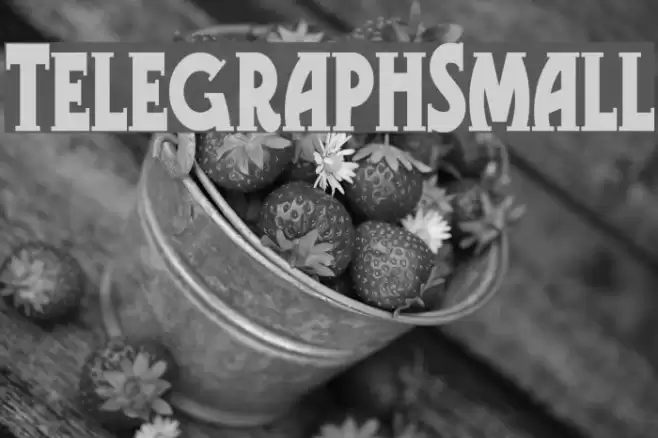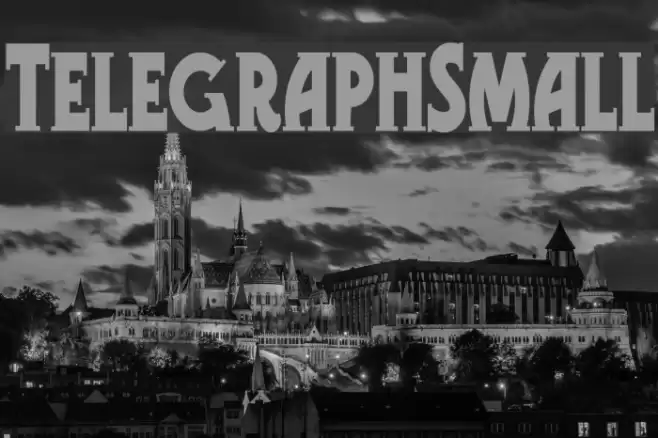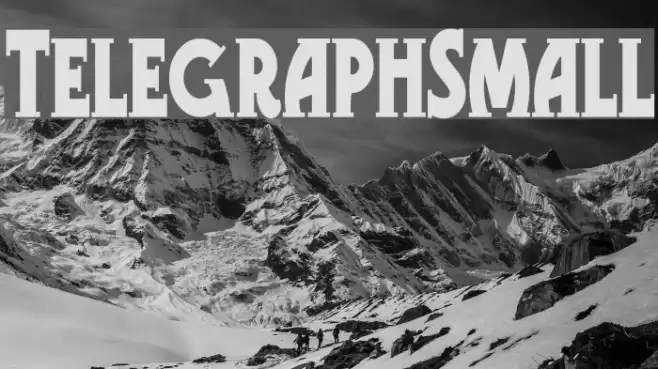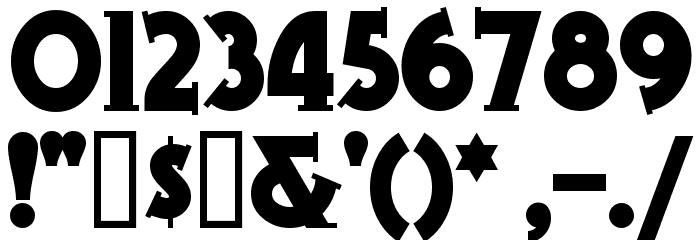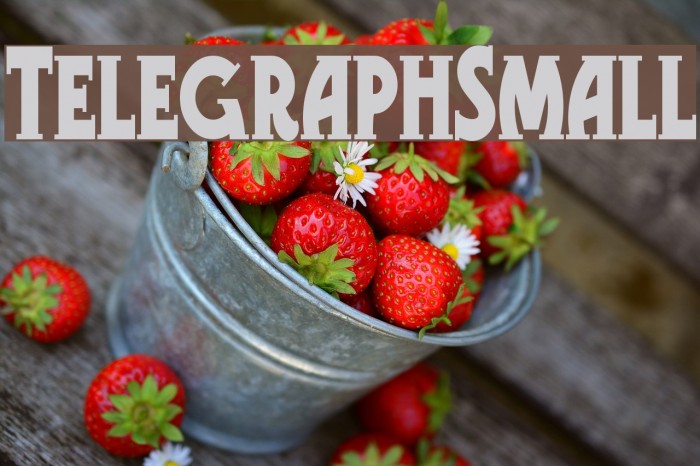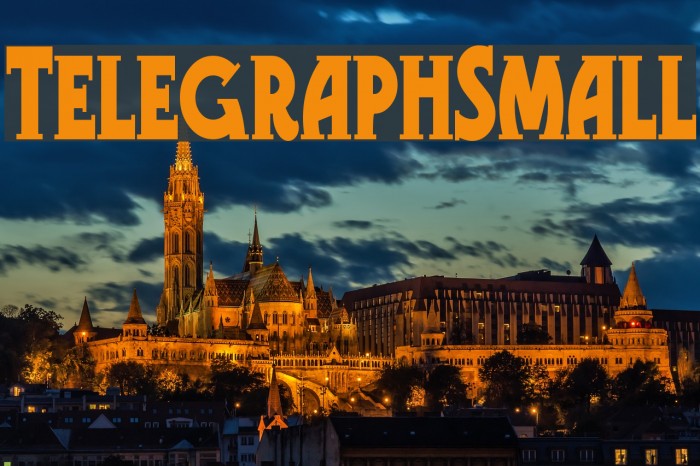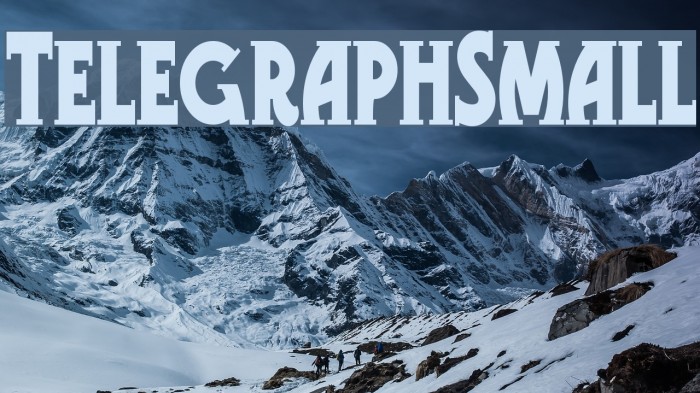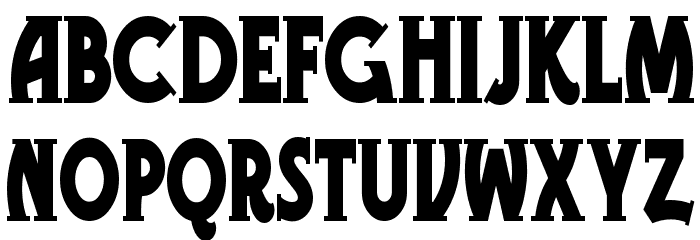
TelegraphSmall Font
TelegraphSmall Description
This font features a bold and dramatic style with thick, heavy strokes and sharp, angular serifs. The characters have a strong presence, making them ideal for attention-grabbing headlines or titles. The uppercase letters are particularly striking, with a consistent weight and width that contribute to a cohesive look. The numerals and special characters maintain the same boldness, ensuring uniformity across all text elements. The font's design is reminiscent of vintage or retro styles, yet it retains a modern edge due to its clean lines and precise curves. This combination of classic and contemporary elements makes it versatile for various design applications.
A bold, dramatic font with thick strokes and sharp serifs, ideal for headlines from Uncategorized fonts.
- Overall Style: Vintage